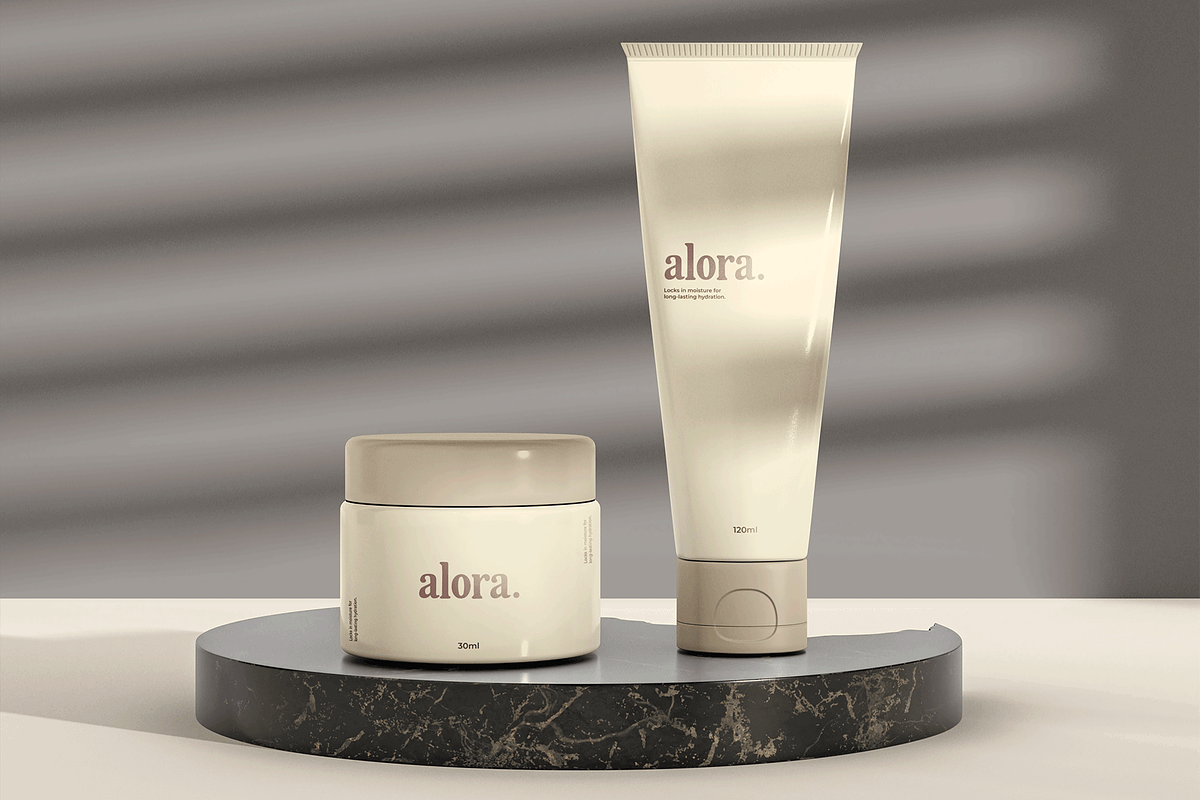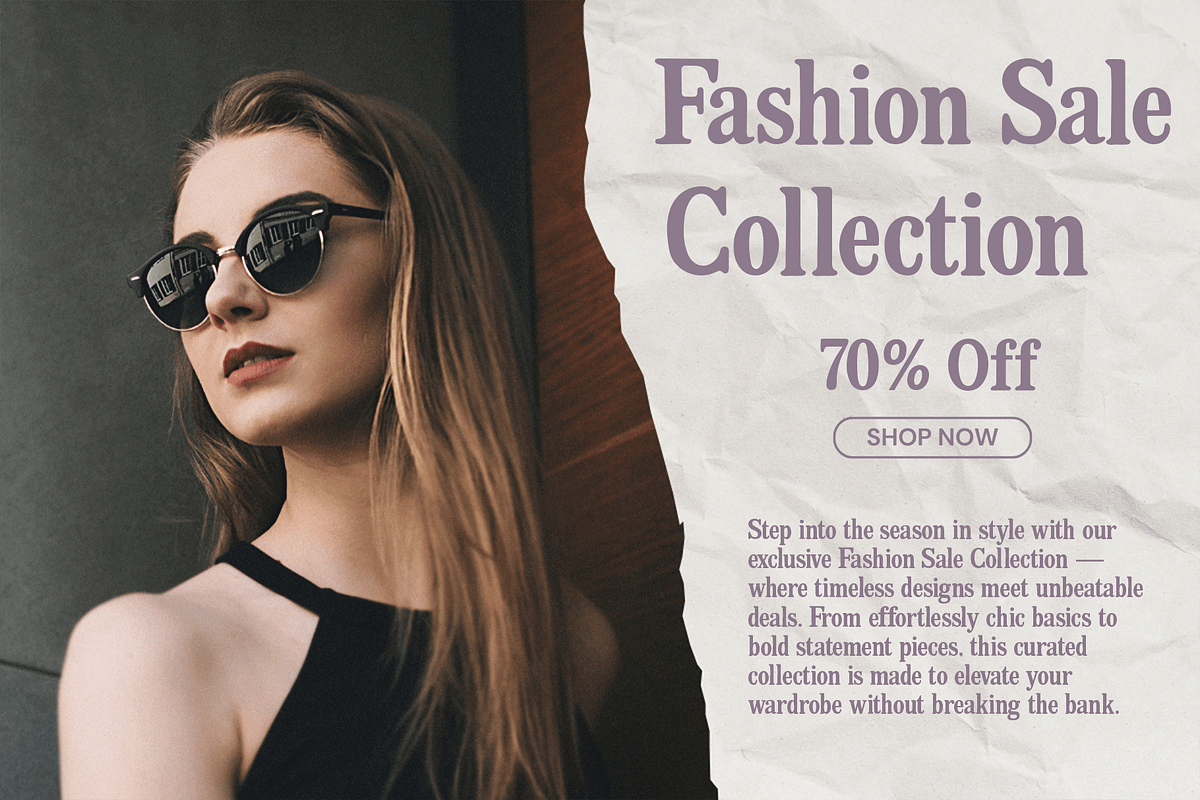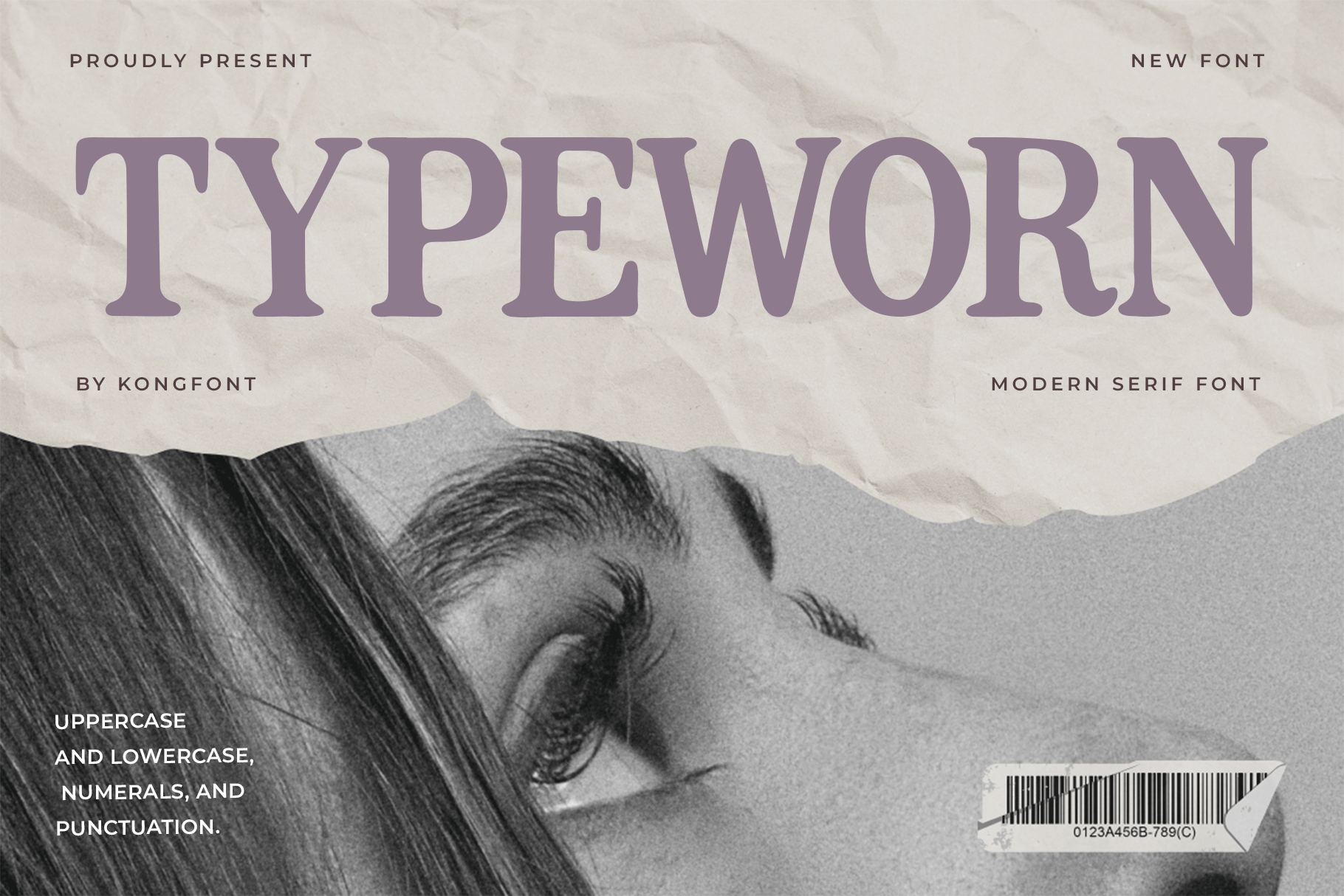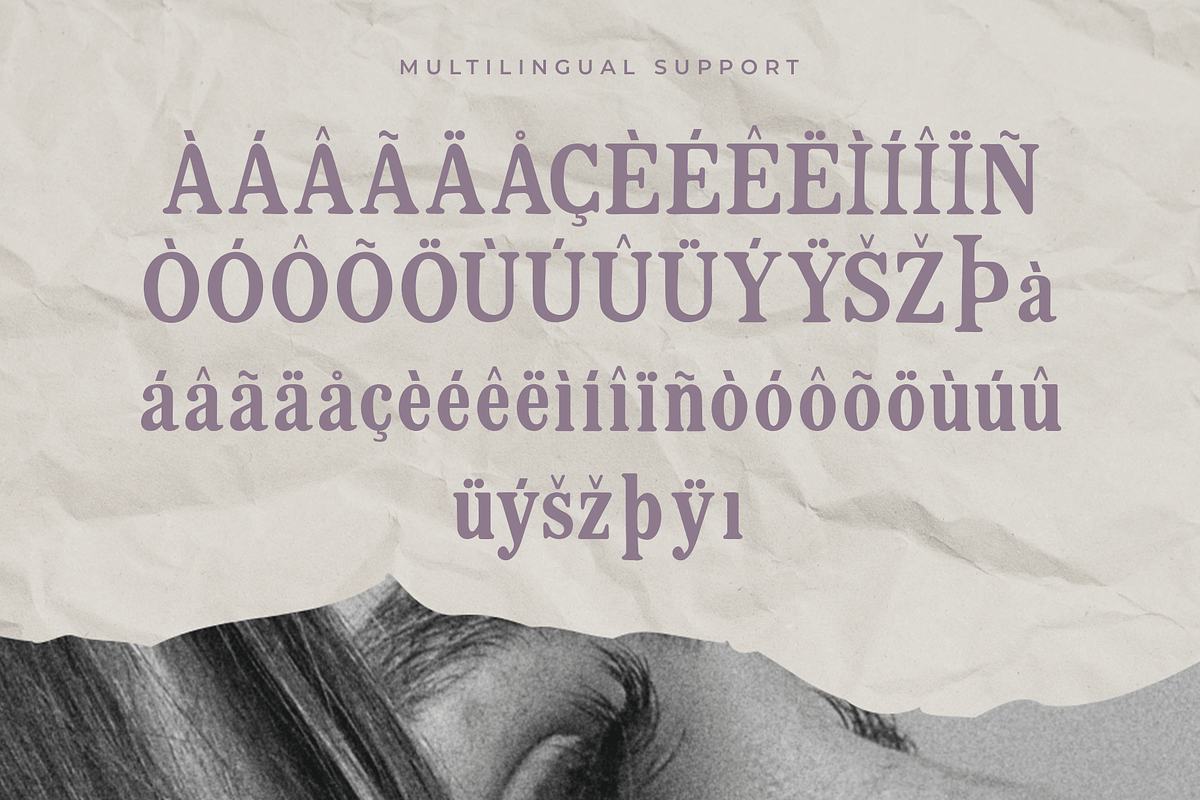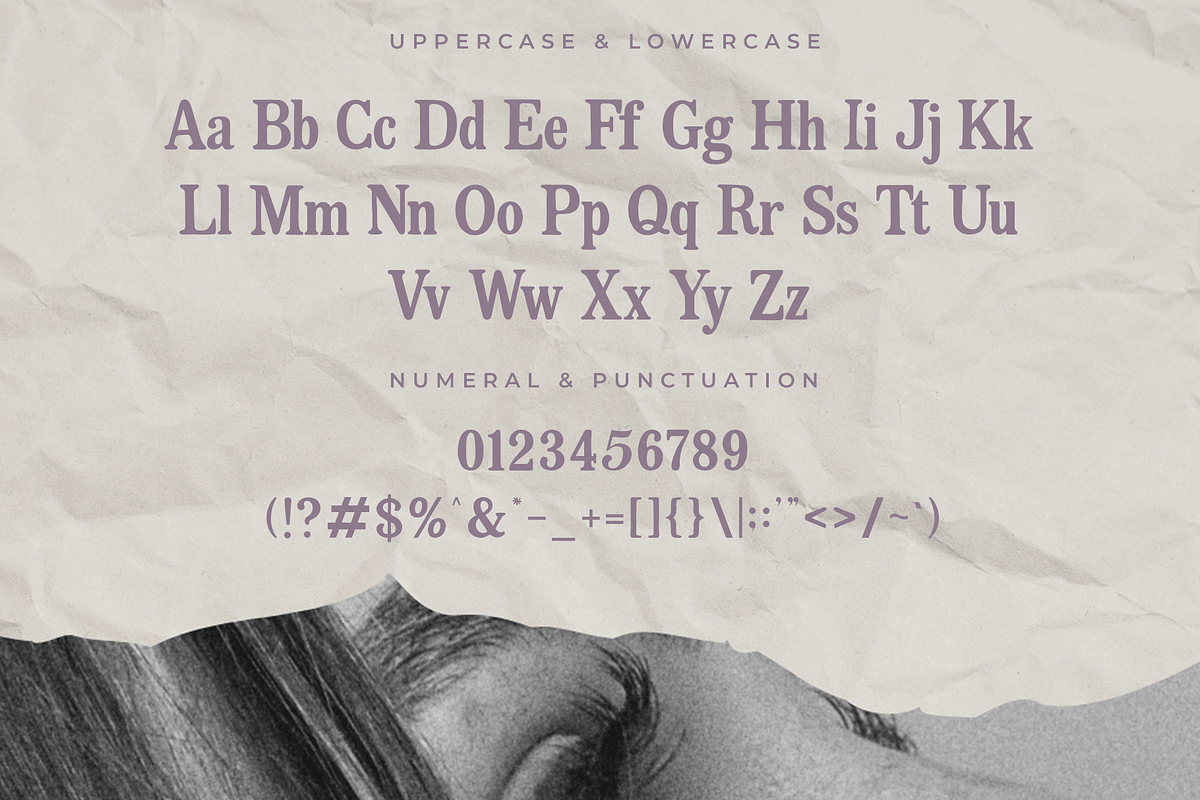
Typeworn – Modern Serif Font
Typeworn is a modern serif font with a weathered, vintage-inspired edge. Featuring subtly distressed letterforms and elegant serif detailing, this typeface evokes the charm of old printed type while staying clean and versatile for modern design use.
Perfect for book covers, editorial layouts, branding projects, product labels, posters, and heritage inspired packaging, Typeworn strikes a balance between nostalgic texture and contemporary clarity. Each character is crafted to deliver personality, legibility, and timeless visual appeal.
The font includes uppercase and lowercase letters, numbers, punctuation, ligatures, and multilingual support making it ready for both standout headlines and refined text settings.
Add a touch of classic soul to your design with Typeworn, a serif that tells a story in every letter.